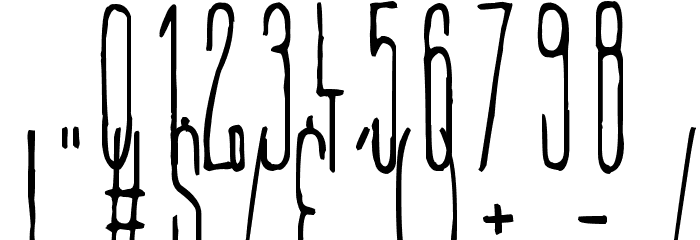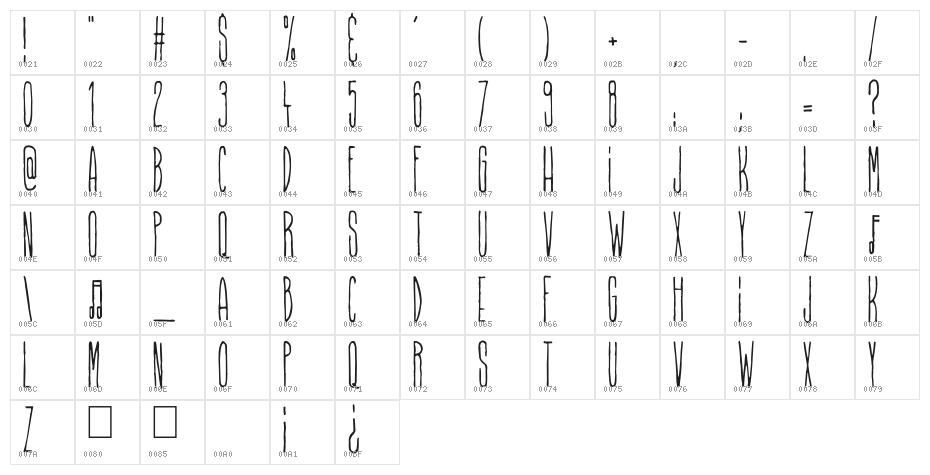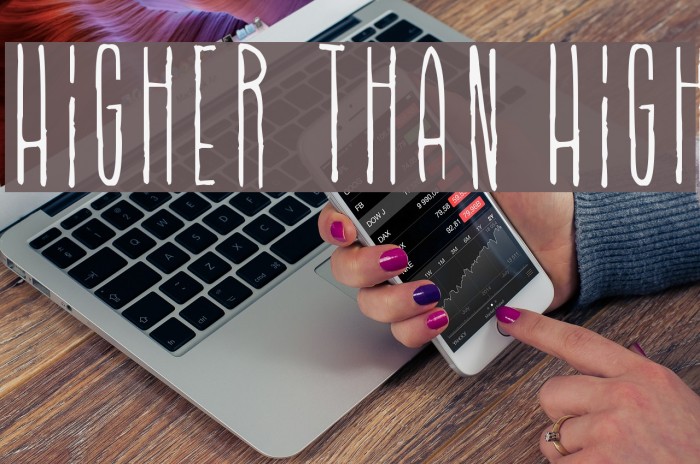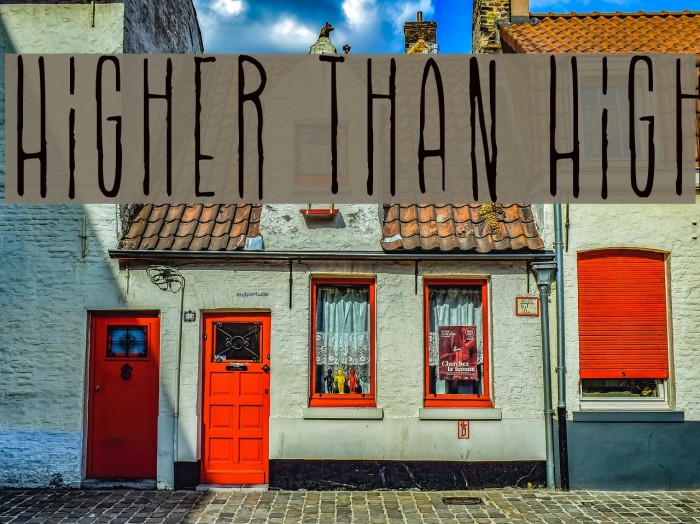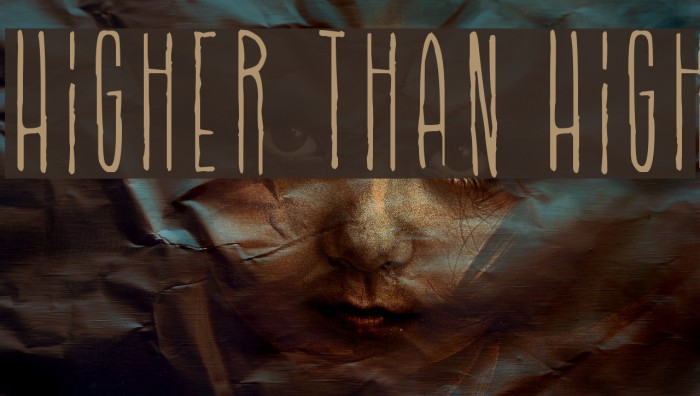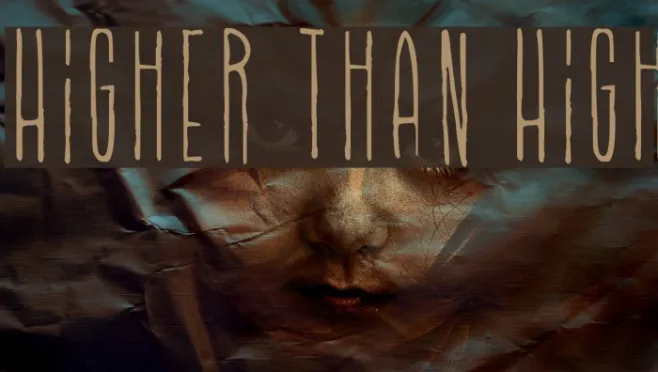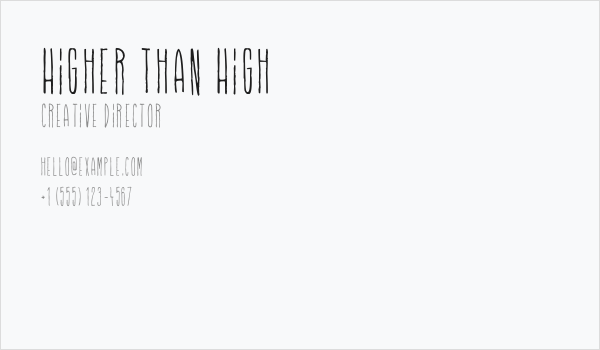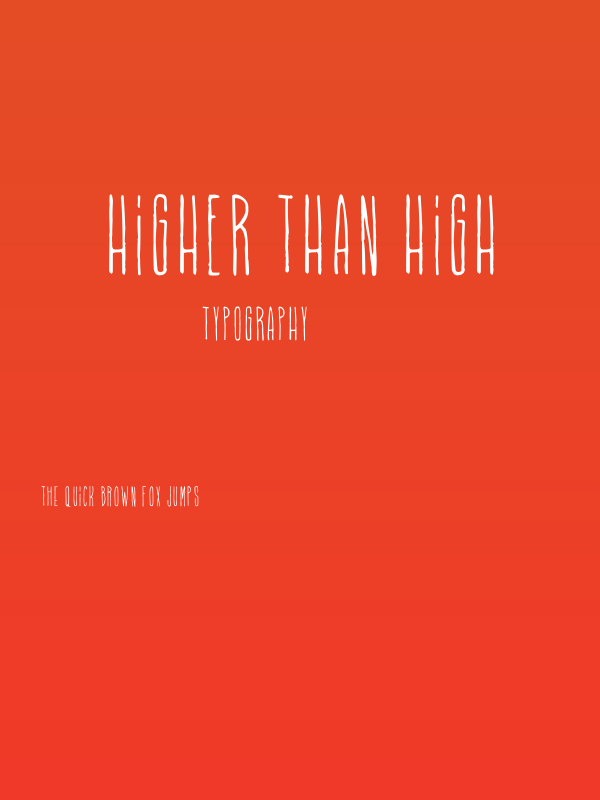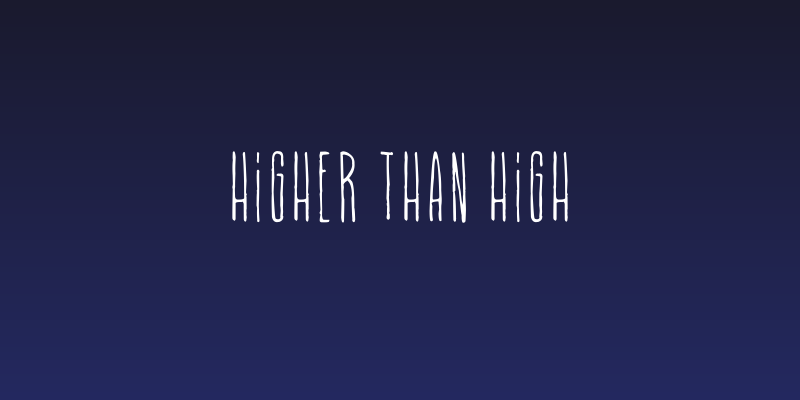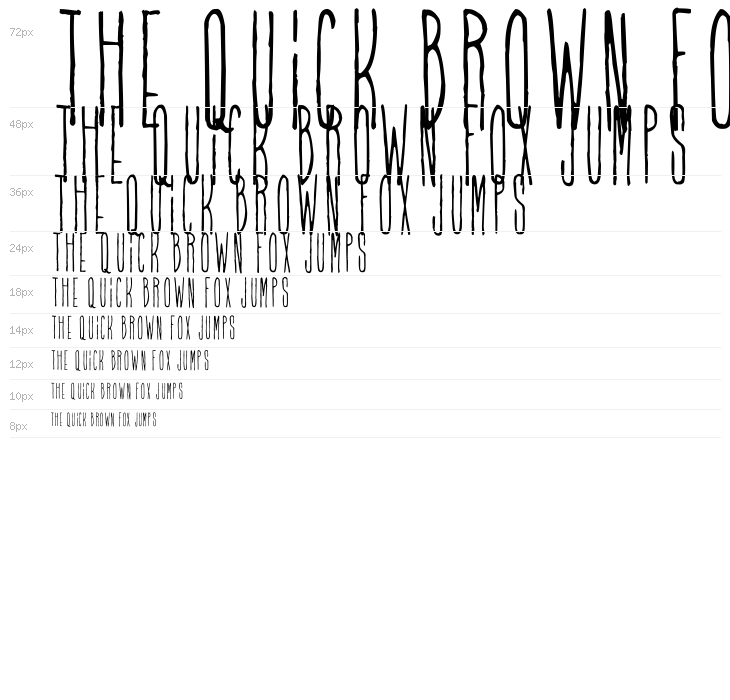
Higher Than High Font
Higher Than High Description
This font features an elongated and narrow design, characterized by its tall, slender letterforms. The strokes are uneven, giving it a hand-drawn, organic feel. The uppercase and lowercase letters maintain a consistent height, creating a uniform appearance. The numbers and special characters follow the same elongated style, ensuring cohesion throughout the set. The overall look is artistic and slightly whimsical, making it stand out in creative projects.